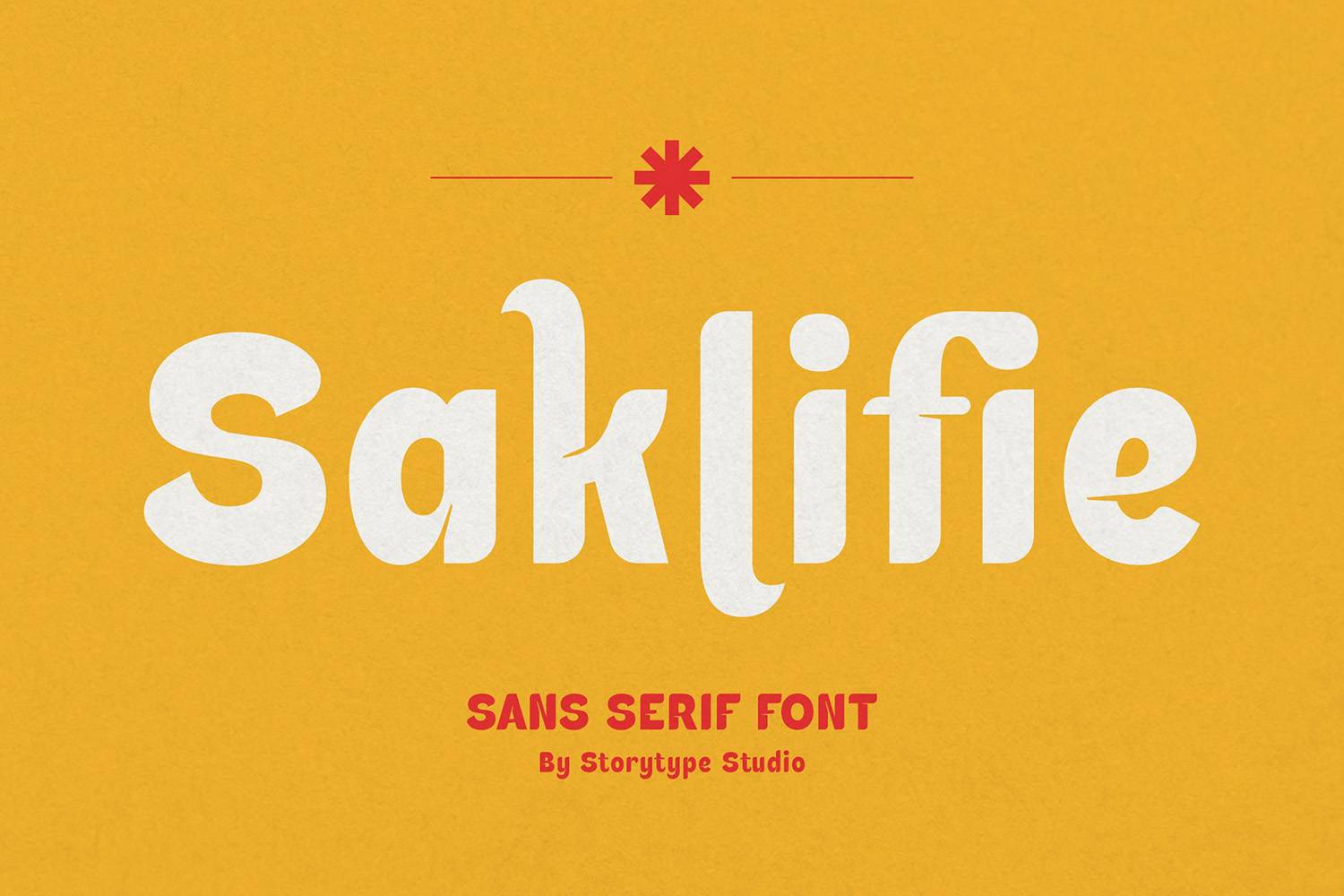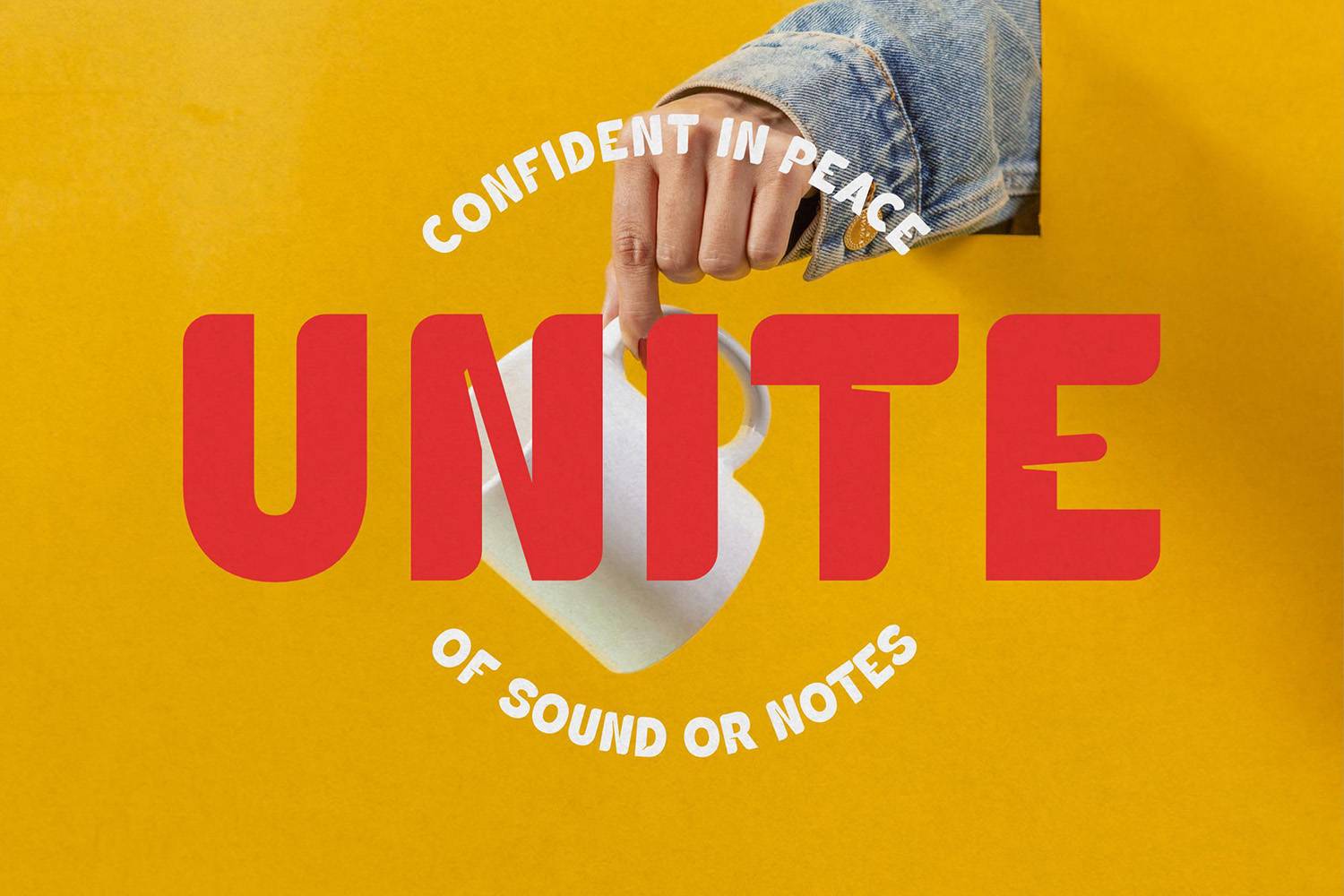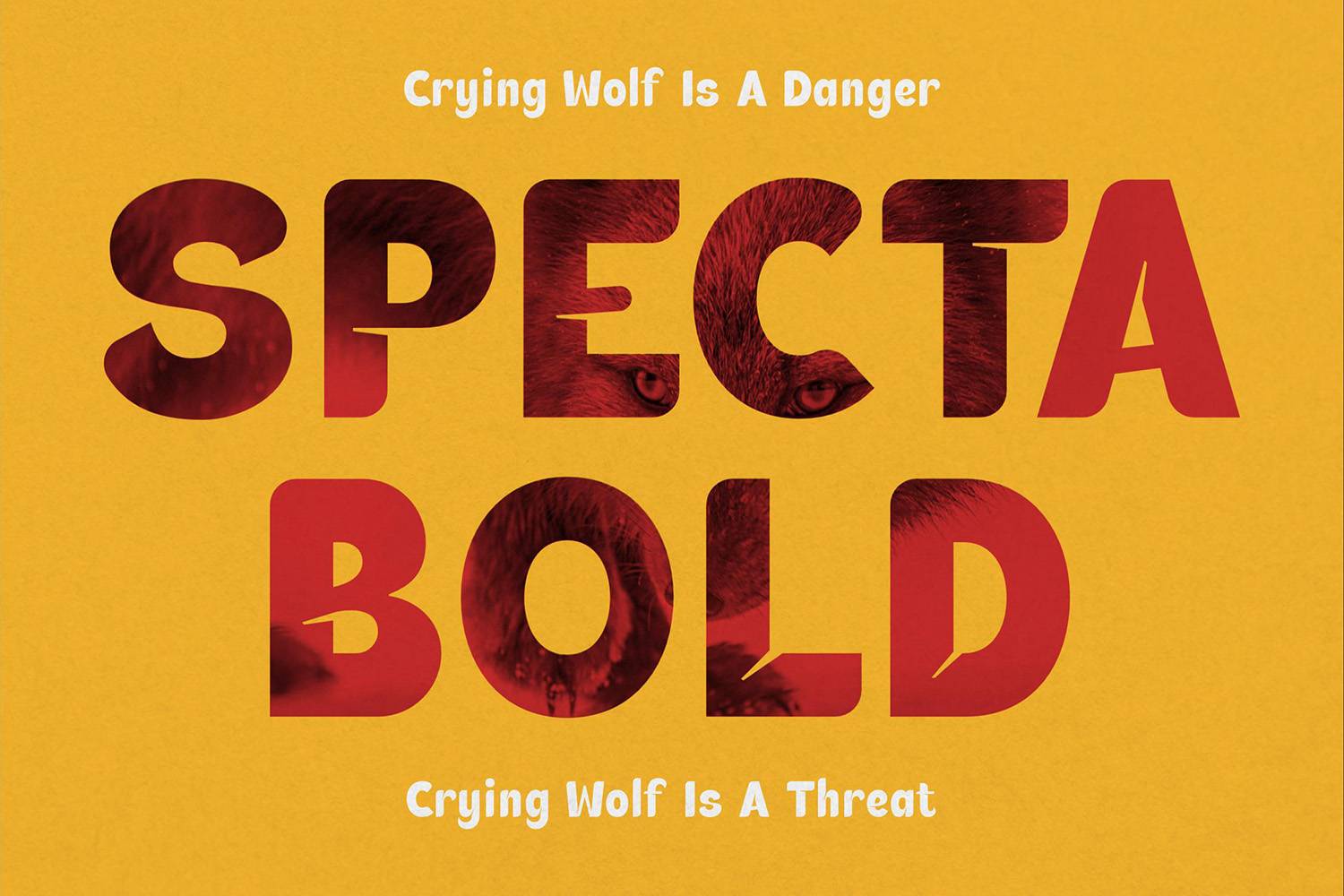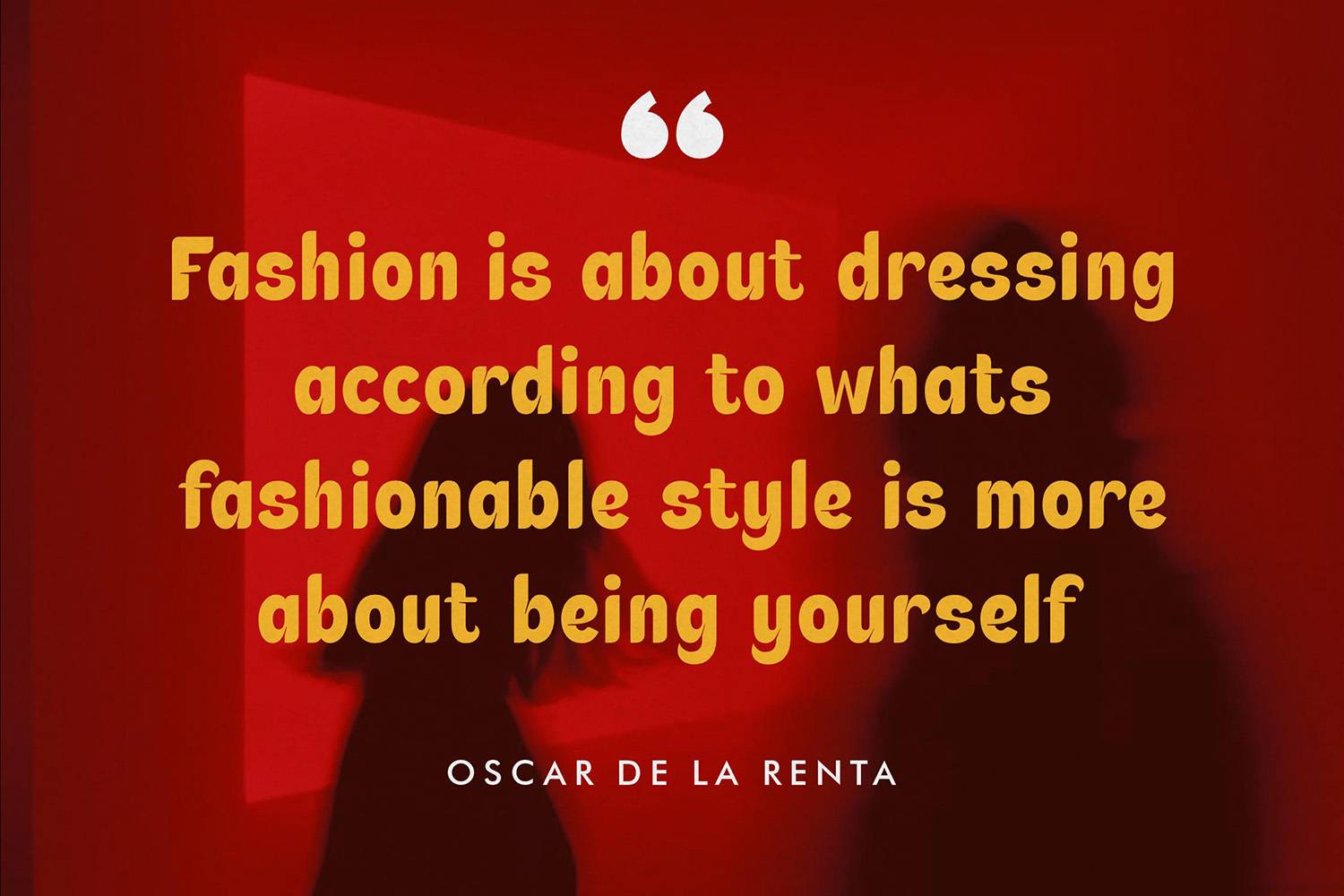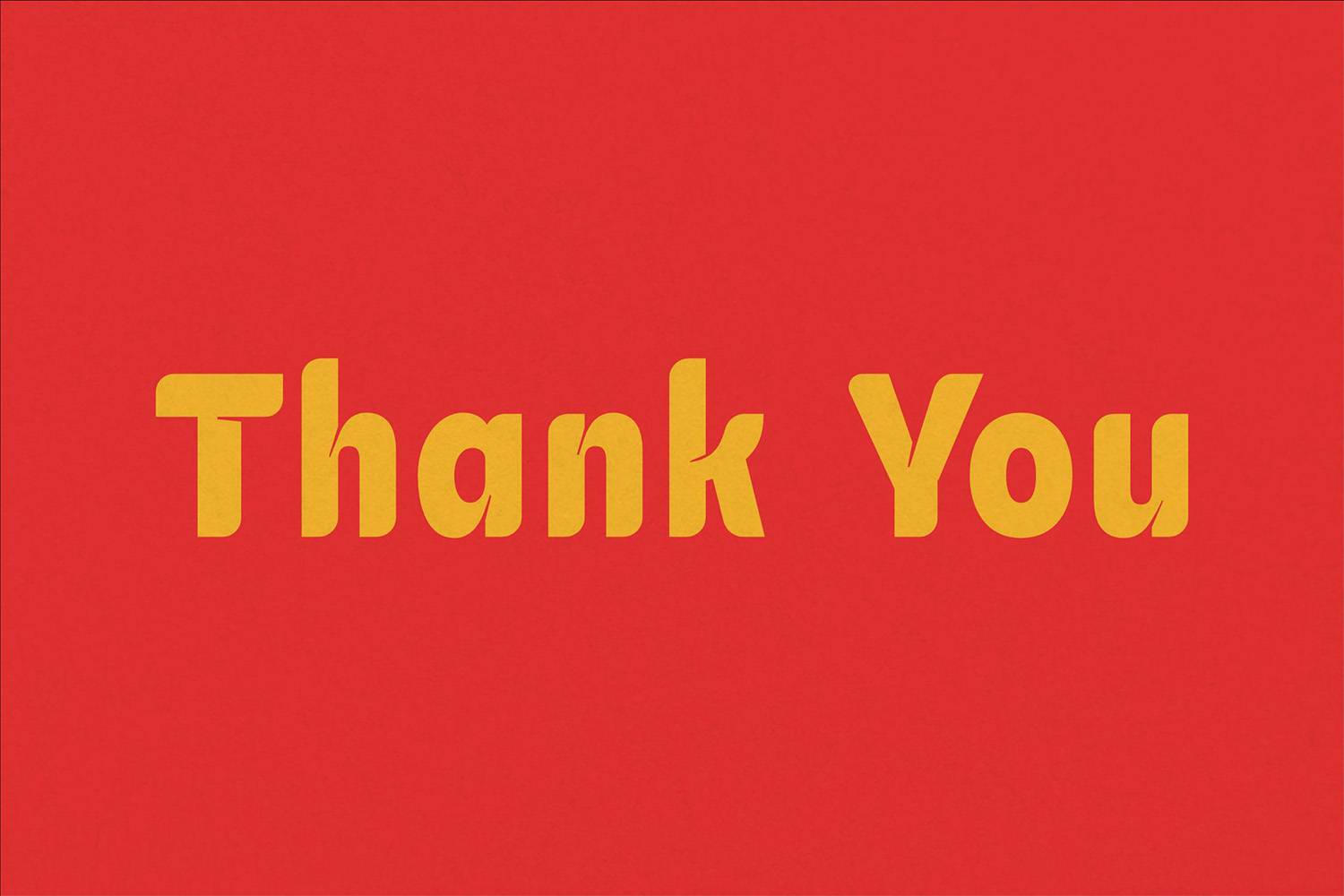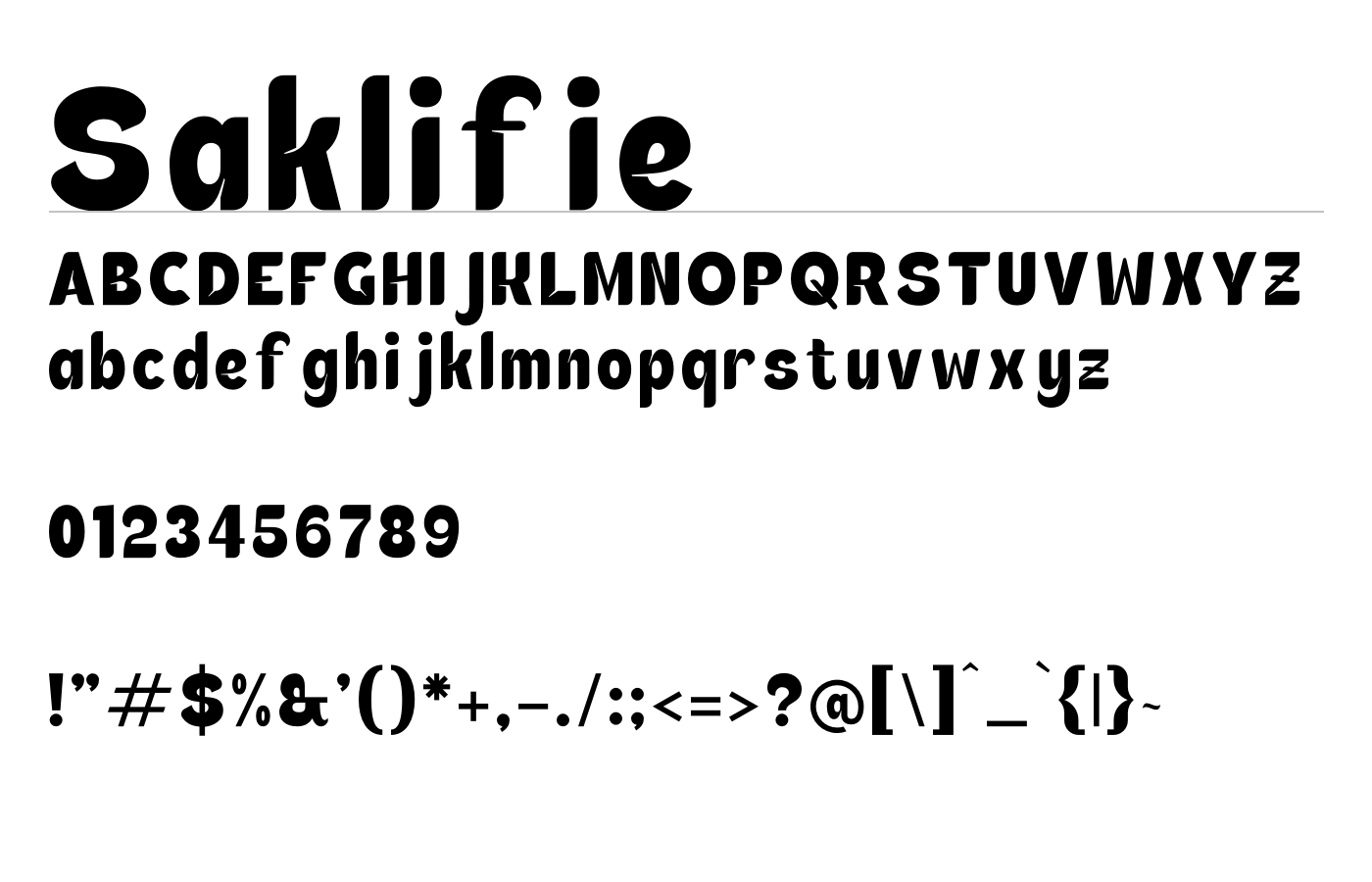
Saklifie is a bold and playful sans serif font with rounded edges and quirky, slightly irregular shapes that give it a friendly and approachable personality. Its strong weight and firm structure make it ideal for eye-catching headlines, logos, or branding that wants to convey creativity and fun without losing readability. This font works well in designs that need a modern yet informal touch, perfect for children’s products, entertainment, or casual lifestyle brands.
Saklifie Font
About Saklifie Font